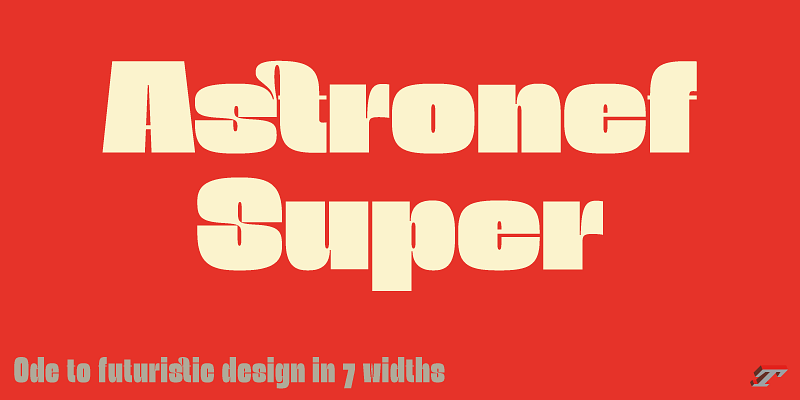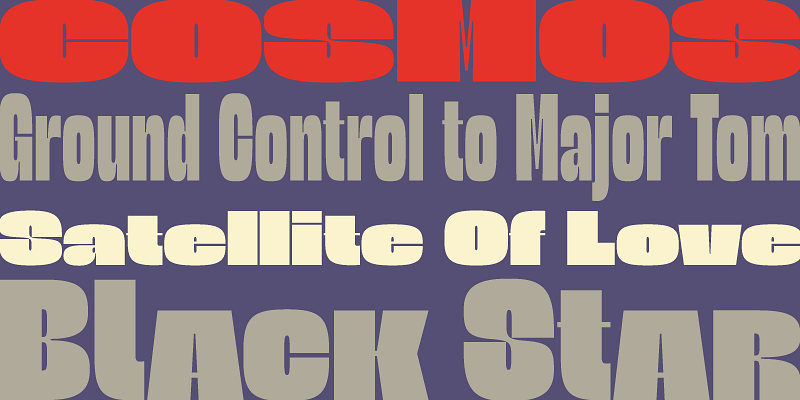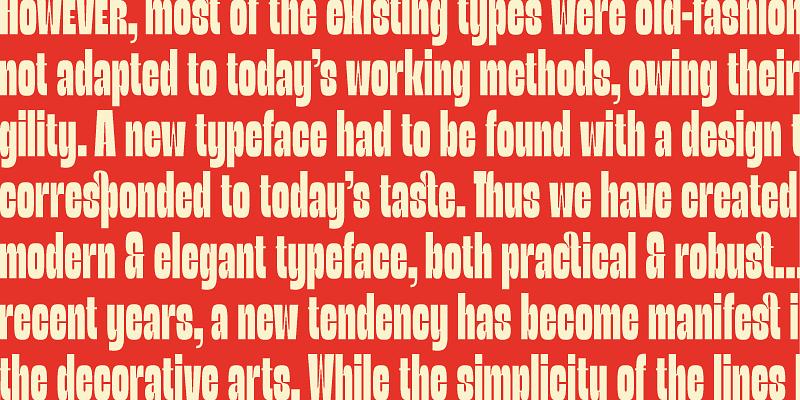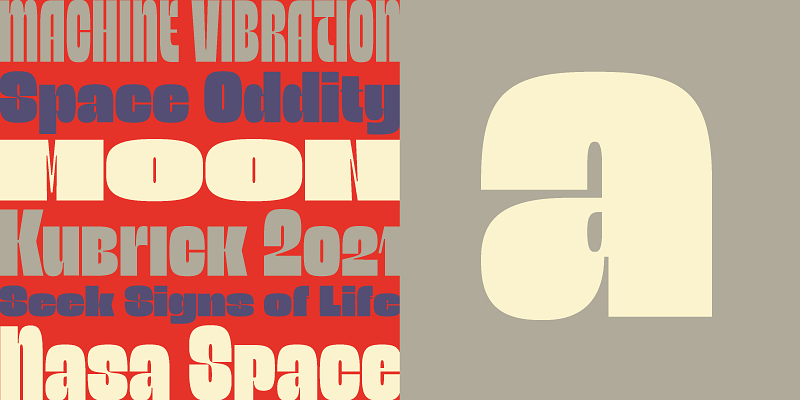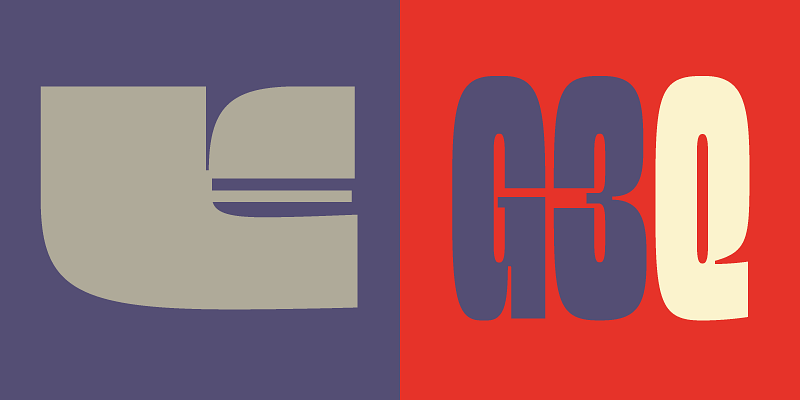
Ode to futuristic design in 7 widths
Astronef Super borrows from the charm of retro-futuristic universes. It is deliberately excessive in his stylistic choices, because his glyphs are intended to be remixed, mixed through his variants.
Using Astronef Super in large size is a real pleasure, it is a very identifiable typeface family, recognizable immediately. Undeniably, choosing Astronef Super in your designs is not insignificant. This typeface used in large sizes will strengthen your graphic identities.
The distribution of horizontal weights is not at all similar between an Extended and a Compress, the ratio changes throughout the family. The transition to Astronef Super Normal, then Astronef Super Compress produces unexpected effects. Astronef Super Extended is very heavy in its vertical stems.